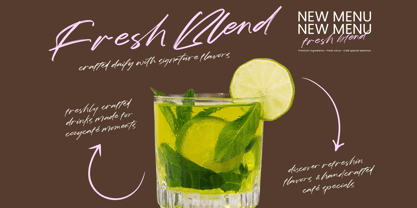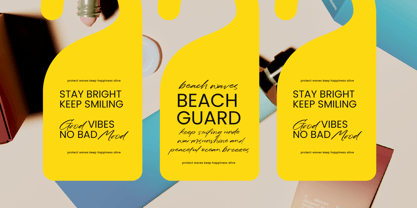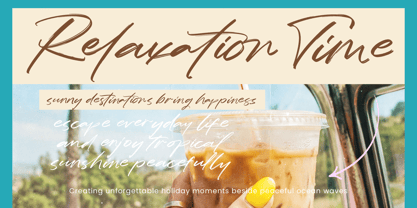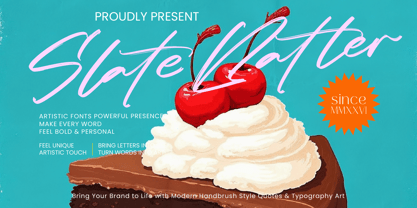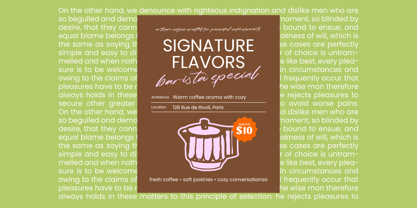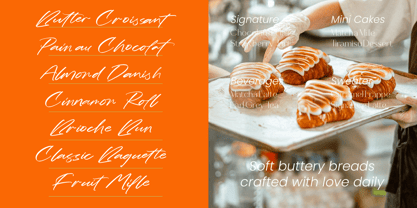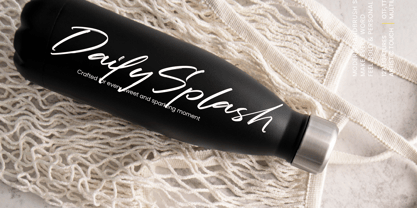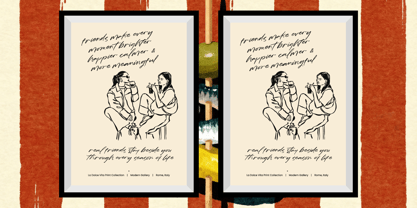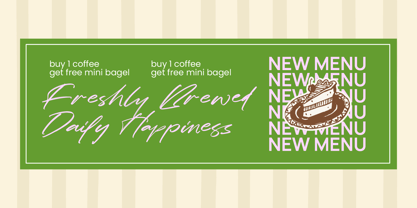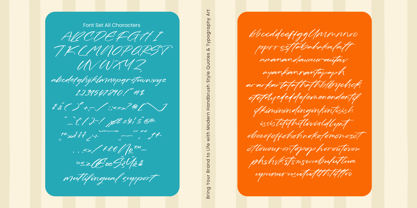
Slate Batter
Die Schriftfamilie Slate Batter wurde von Heru Utama Putra entworfen und von Stylishtype Studio veröffentlicht. Slate Batter enthält 2 Stile und Familienpaketoptionen. Mehr über diese Familie
Slate Batter - Modern Handbrush Script. This premium typography solution captures the artistic touch of manual brushwork, blending modern aesthetics with a bold, personal feel. Its fluid strokes and high-contrast characters create an immediate visual impact, ensuring that every word resonates with authenticity and dynamic movement.
Command attention in the marketplace by integrating Slate Batter - Modern Handbrush Script into your next luxury branding or editorial design project. This typeface is perfect for high-end product packaging, social media graphics, and fashion lookbooks where a distinctive identity is paramount. Its versatile nature makes it an ideal choice for signature logos and promotional posters that require a sophisticated edge.